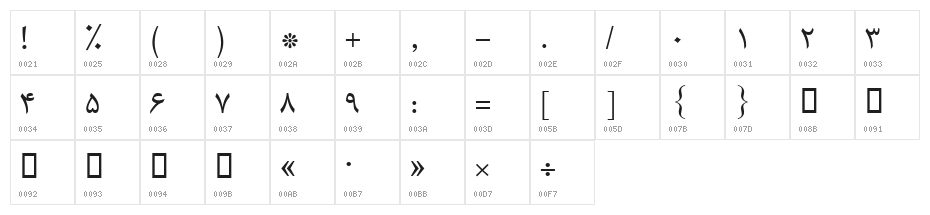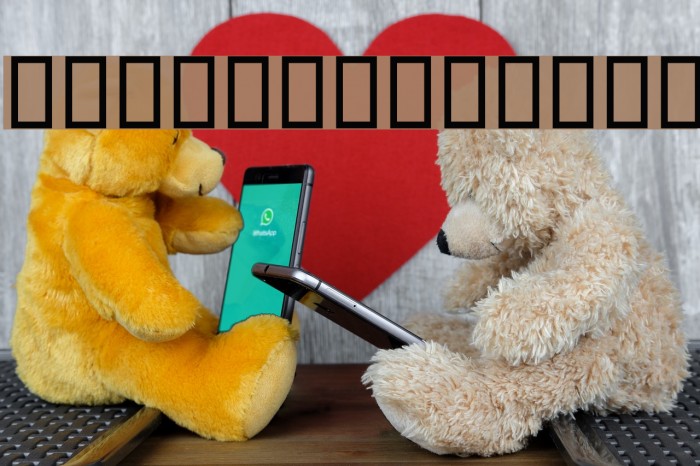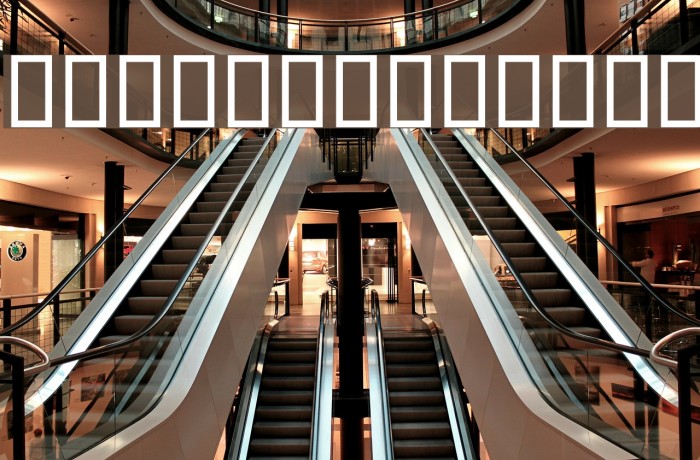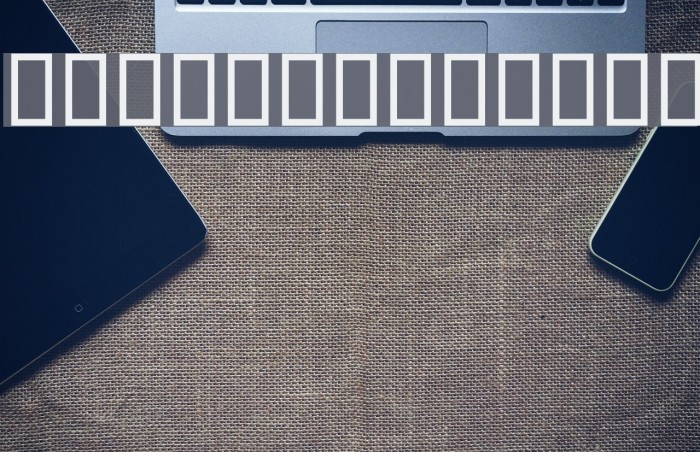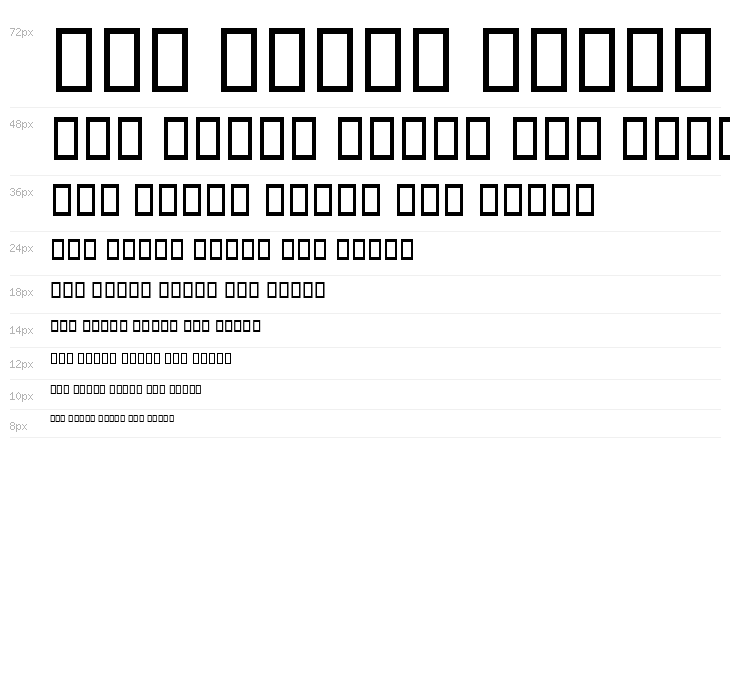
Farsi Mitra Font
Farsi Mitra Description
This font features a traditional Persian script style, characterized by elegant curves and a flowing design. The numerals are distinct, with a slight slant that adds a dynamic feel. The special characters are designed to complement the overall aesthetic, maintaining the script's fluidity. The font's intricate details and smooth transitions between strokes make it suitable for decorative purposes, while its readability ensures it can be used effectively in various contexts.
| Overall Style | Traditional |
| Use Case | Decorative, Invitations, Branding |
| Proposed Projects | Ideal for cultural publications, artistic projects, invitations, and branding that requires a touch of elegance and tradition. |